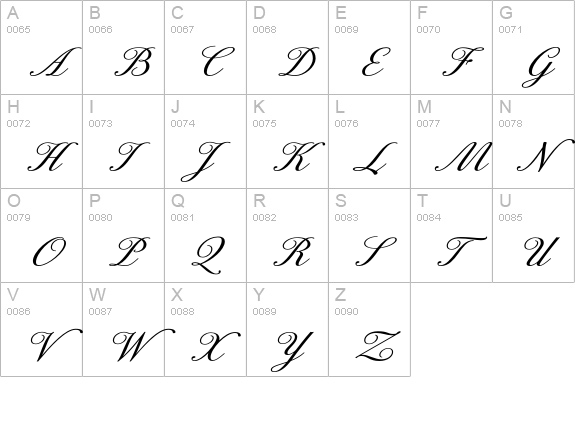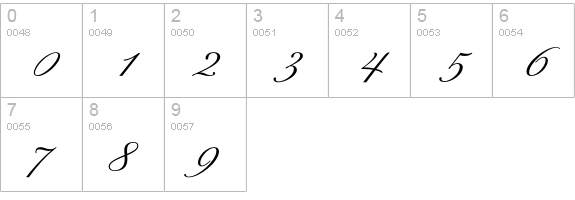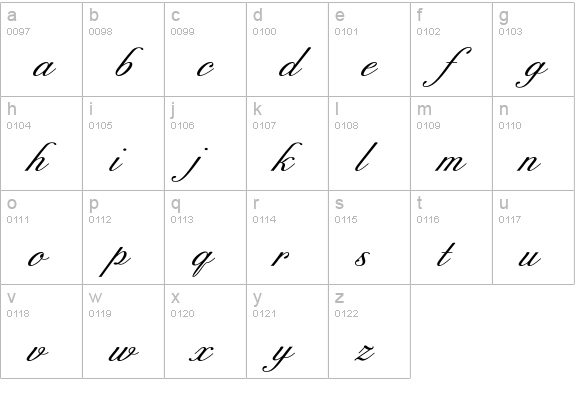
ExcelsiorScriptTextExtended Font Details
ExcelsiorScriptTextExtended is a beautifully elegant and sophisticated font that exudes a sense of luxury and class. Its flowing script style adds a touch of refinement to any design, making it perfect for invitations, branding, and other upscale projects. The extended version of ExcelsiorScriptText offers even more versatility and charm, with elongated flourishes that add a unique flair to your text. One of the best things about ExcelsiorScriptTextExtended font is that it is completely free to download at FontsMarket.com. This means you can add a touch of opulence to your projects without any cost, making it an ideal choice for designers looking to elevate their work without breaking the bank. Whether you're creating wedding invitations, business cards, or anything in between, ExcelsiorScriptTextExtended font is sure to impress with its timeless elegance and charm.